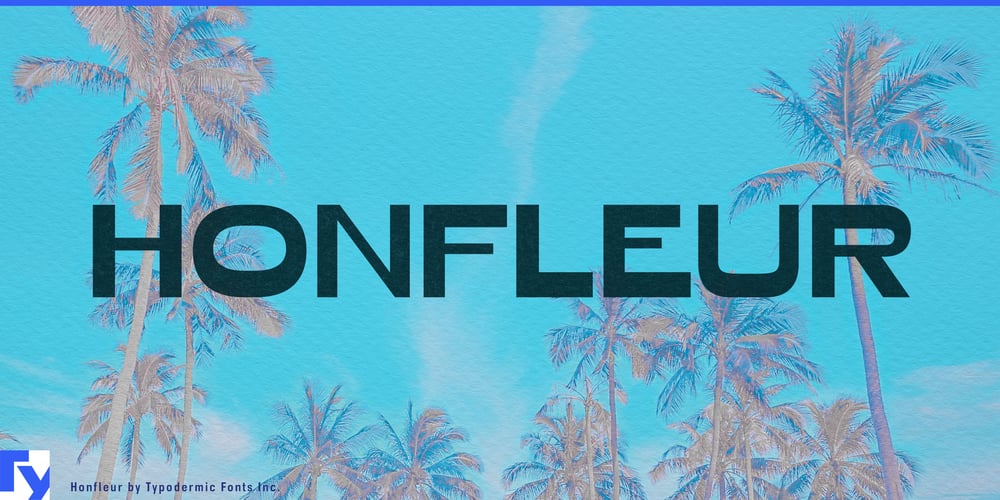
Honfleur
Honfleur font
Honfleur Font Family was designed by Ray Larabie, Chikako Larabie and published by Typodermic. Honfleur contains 1 styles and family package options. Indulge your senses in the opulent world of Honfleur, a typeface that doesn’t merely adorn your designs—it elevates them to the realm of haute couture. Born from the whispered elegance of a vintage perfume poster, Honfleur is the typographic equivalent of a perfectly aged Bordeaux, its essence distilled from the very air of sophistication.Honfleur doesn’t simply occupy space on a page; it commands it with the quiet confidence of old money. Its exceptionally wide alphabet stretches languidly across your canvas, each letter a work of art that speaks volumes in hushed, refined tones. This is not a typeface that shouts for attention—it knows that true luxury whispers, and the world leans in to listen. Imagine, if you will, the gentle rustle of silk against skin, the soft clink of fine crystal, the subtle gleam of pearls in candlelight. These are the sensations that Honfleur evokes with every curve and flourish. It’s a typeface that doesn’t just convey a message; it crafts an experience, wrapping your words in an aura of exclusivity and timeless grace.But Honfleur’s sophistication is anything but static. Like a masterful couturier, it adapts its refined presence to suit any haute occasion. On a fashion house’s logo, it struts with the confidence of a runway model. Gracing the label of a limited-edition spirit, it sparkles like the bubbles in a flute of vintage champagne. Adorning the invitation to a gala, it practically waltzes off the page, promising an evening of unparalleled elegance. And just when you thought Honfleur couldn’t be more cosmopolitan, it reveals its true worldliness. This typeface is as comfortable setting French poetry as it is crafting Finnish prose, its linguistic versatility matching its design pedigree. From the sun-drenched riviera to the snow-capped Alps, Honfleur speaks the language of luxury fluently, with a pan-European flair that would make a jet-setting socialite swoon.So, whether you’re branding a boutique hotel that redefines opulence, designing packaging for a fragrance that captures the essence of desire, or simply want to imbue your corporate communications with an air of unassailable prestige, Honfleur stands ready to lend its refined voice to your vision. Don’t let your designs blend into the background like last season’s fashions. Choose Honfleur, and watch as your words transform into a siren song of sophistication, drawing the eye and captivating the imagination.